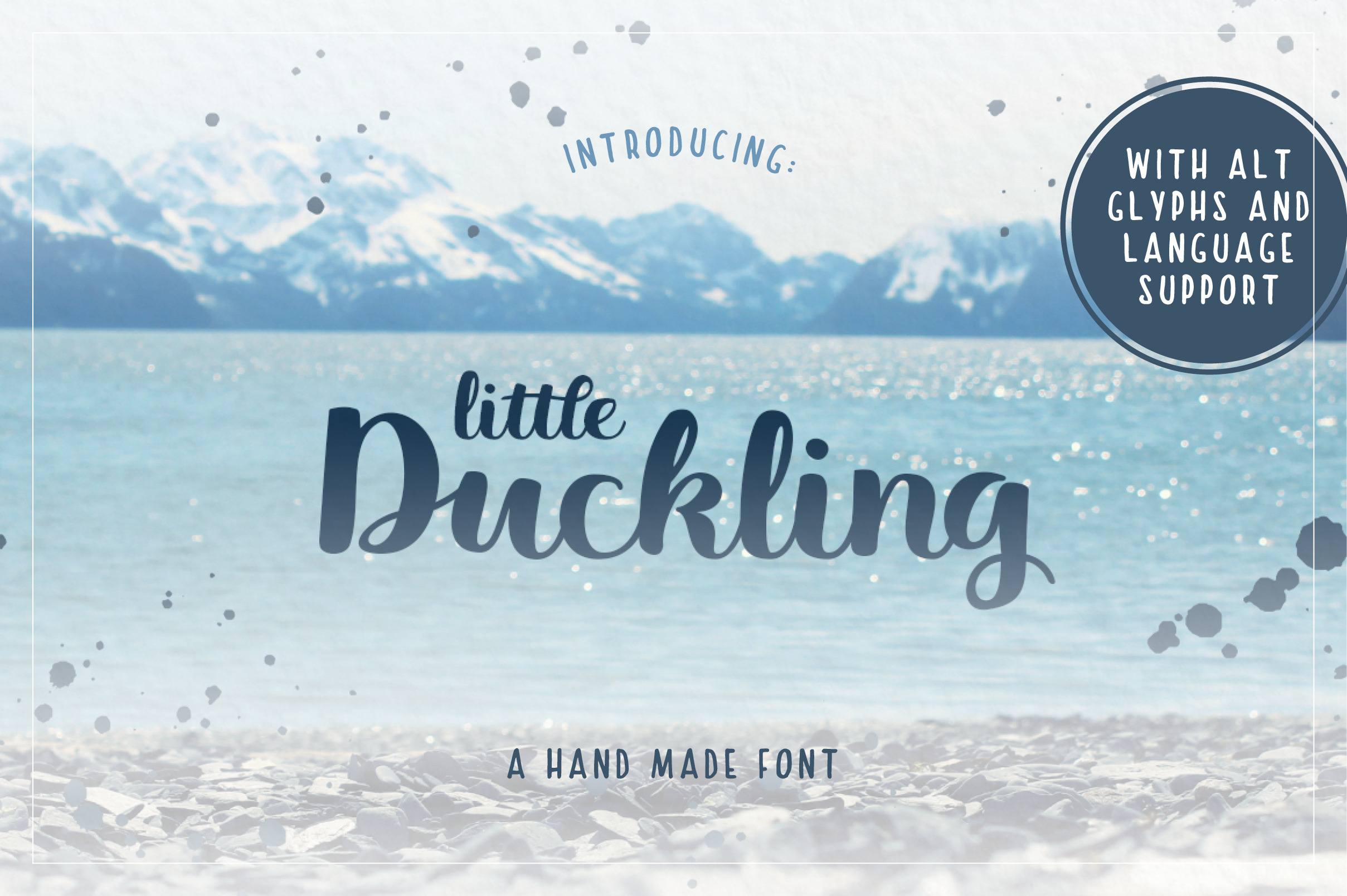
Little Duckling Hand Made Font
Introducing my brand new Hand Made Font: Little Duckling.
Little Duckling is made in a basic brush letter style, but with it's own touch. The font is smooth and soft looking, just like a little duckling.
- Uppercase and lowercase Letters
- Punctuation marks
- Extended language support
- Stylistic alternatives
- Variety of entrance and exit strokes
Bonus:
- Customised Heart-glyph, that you can access with a shortcode, or through your Glyphs-panel.